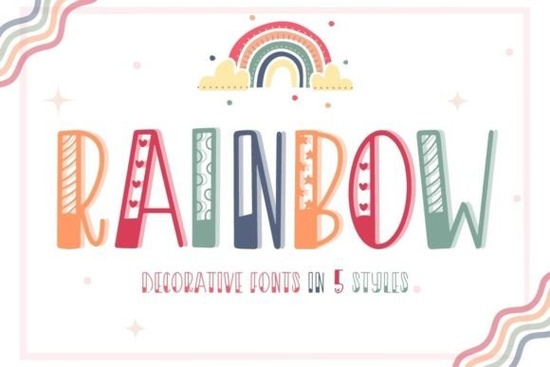
If you're looking for a playful, versatile decorative font that works across print and digital projects especially for cheerful, colorful designs the Rainbow Font is a thoughtful choice. It’s not just one font, but five coordinated styles: circle, line, star, heart, and regular all built around bold, rounded letterforms with integrated graphic elements. That means each version feels distinct but cohesive, making it easy to mix and match within the same project without clashing. Whether you’re designing birthday cards, social media graphics for a small business, or printable stationery for craft fairs, this set gives you flexibility without sacrificing charm.
How does Rainbow Font actually work in real projects?
Unlike many script or display fonts that only shine in large headlines, Rainbow Font scales well from 24pt mugs to 12pt greeting card tags thanks to its clean outlines and generous spacing. The “circle” style wraps letters in soft, continuous rings; the “star” version adds subtle star-shaped terminals on ascenders and descenders; and the “heart” variant tucks tiny hearts into letter joints (like where the stem meets the bowl of a lowercase ‘b’). These aren’t gimmicks they’re intentional design details that hold up when printed or cut with vinyl.
For print-on-demand sellers, that consistency matters. You won’t need to re-kern every word or adjust tracking per size. And because all five styles share the same x-height and baseline alignment, switching between them mid-design say, using “line” for a headline and “regular” for body text feels natural, not jarring.
You’ll also get alternate characters (like swash capitals and ligatures) in the “circle” and “star” versions useful for adding subtle variation to repeated words like “celebrate” or “love.” These aren’t hidden deep in glyph panels either; most show up automatically when you enable OpenType features in Adobe apps or Affinity Designer.
Where does it fit alongside other decorative fonts?
Rainbow Font sits comfortably between highly stylized script fonts and minimalist sans-serifs. It’s more structured than the Rainbow Font Script Fonts, which lean into handwritten flow, and less ornate than the Best Stitch Font Decorative Fonts, which include embroidery-ready outlines and stitch textures. That makes it a reliable middle-ground option especially if your workflow involves both digital mockups and physical products.
It also complements fonts like the Fire Font Decorative Fonts nicely: use Rainbow for friendly, inclusive messaging (“Happy Birthday!” or “Thank You!”), and Fire Font for high-energy moments (“Sale!” or “New Drop!”). They share visual weight but differ in tone so they can coexist in a brand kit without competing.
Who uses it and what do they actually make with it?
- Crafters cut the “heart” style for baby shower banners and iron-on transfers for onesies.
- Small businesses use the “line” version in Canva templates for Instagram Stories especially for seasonal promotions (think pastel Easter headers or bright summer sale graphics).
- Print-on-demand sellers layer the “star” style over watercolor backgrounds for notebook covers sold on Etsy or Redbubble.
- Teachers and homeschoolers print flashcards and classroom labels using the “regular” style it’s legible at small sizes but still warm and inviting.
A quick checklist before you download
- ✅ You need a decorative font that’s fun but still readable at medium sizes (not just for giant posters)
- ✅ You want variety without buying five separate fonts having circle, line, star, heart, and regular in one set saves time and ensures harmony
- ✅ You work across platforms desktop apps, web tools like Canva, and cutting machines and need consistent rendering
If those match your needs, Rainbow Font is a practical, well-designed addition not a novelty. Try pairing it with a neutral sans-serif for contrast, or layer it over textured backgrounds for depth. And if you already own other decorative fonts from Creative Fabrica, check how Rainbow interacts with them visually before finalizing a layout you might find new combinations you hadn’t considered.